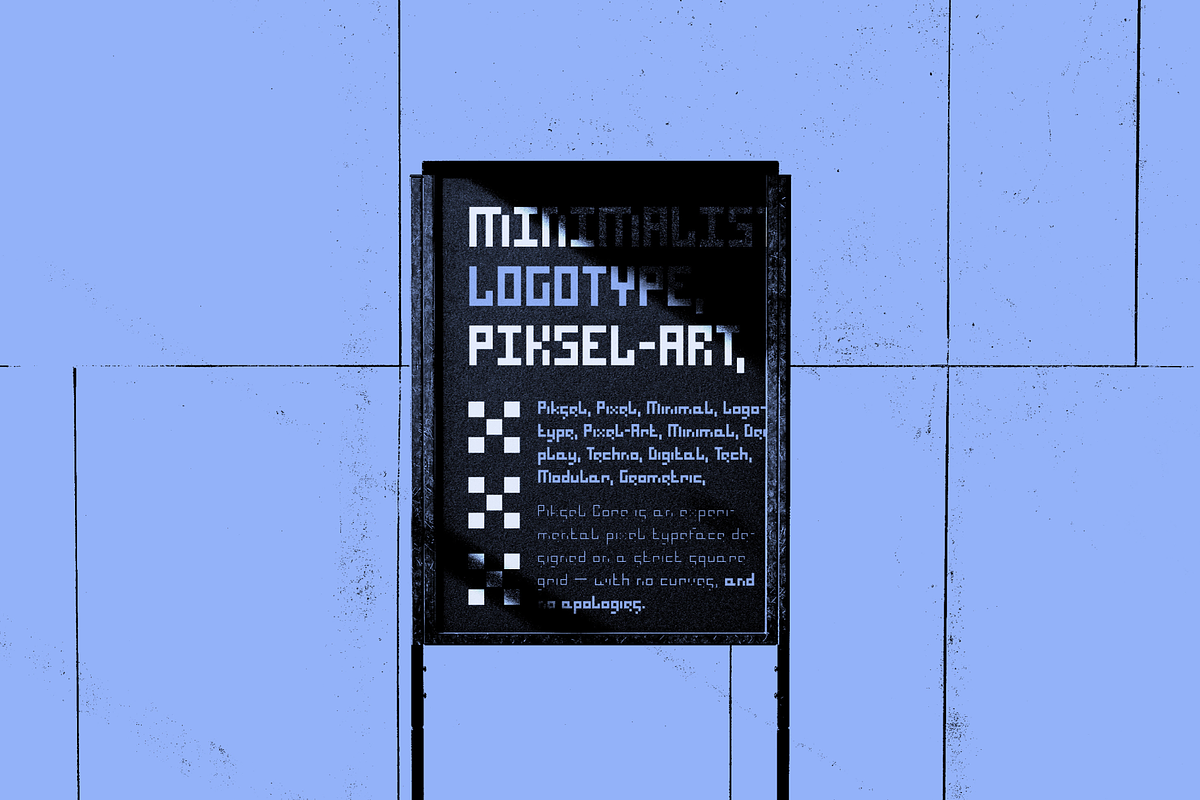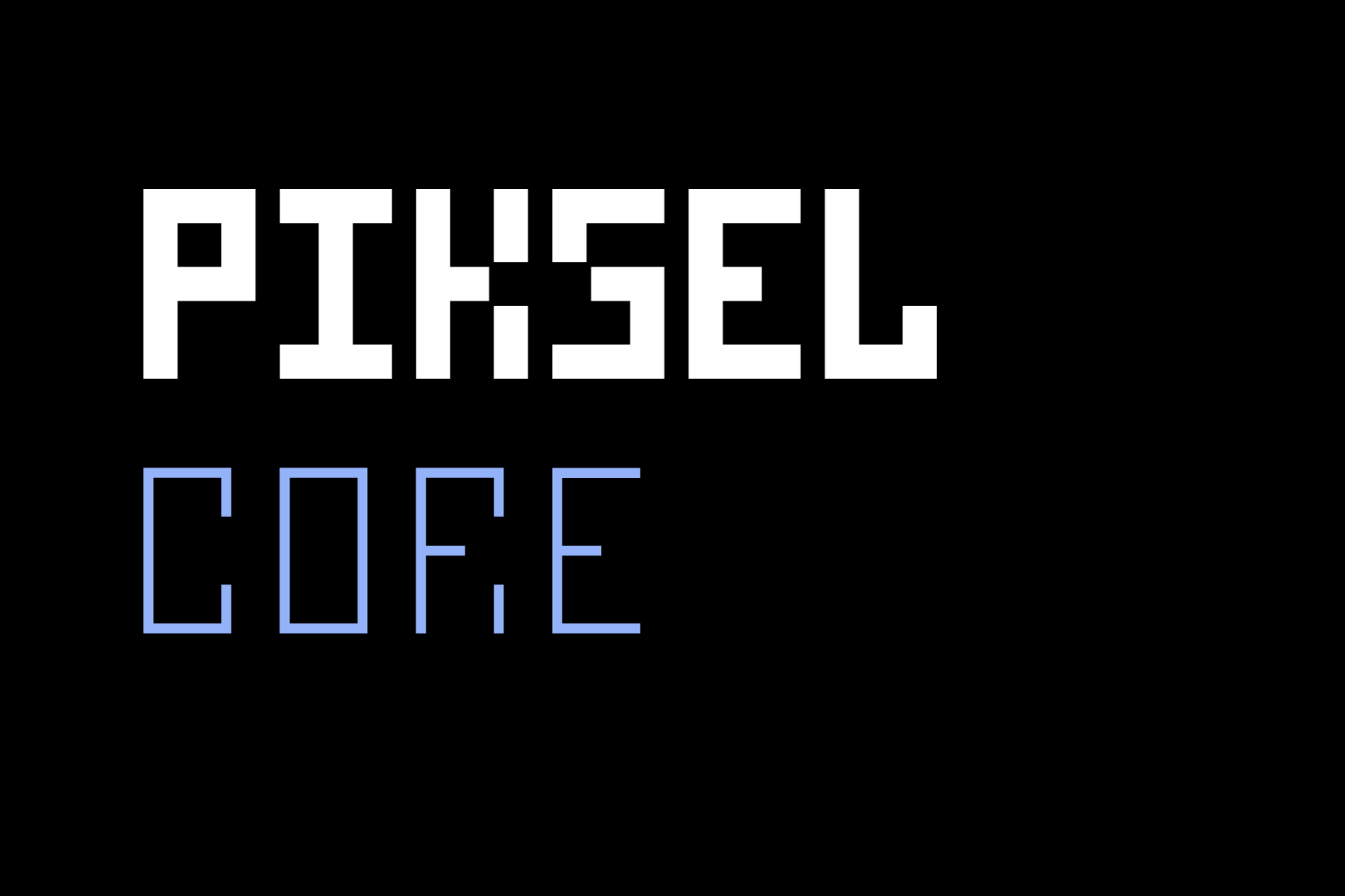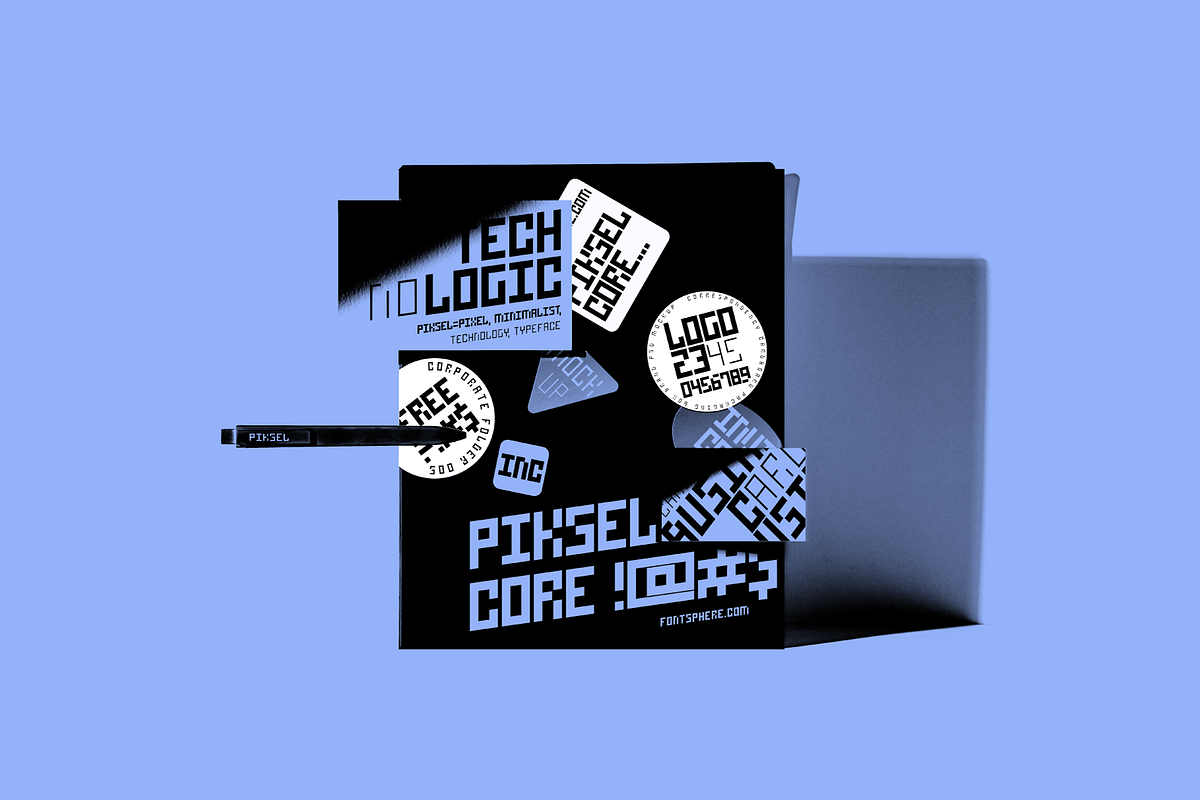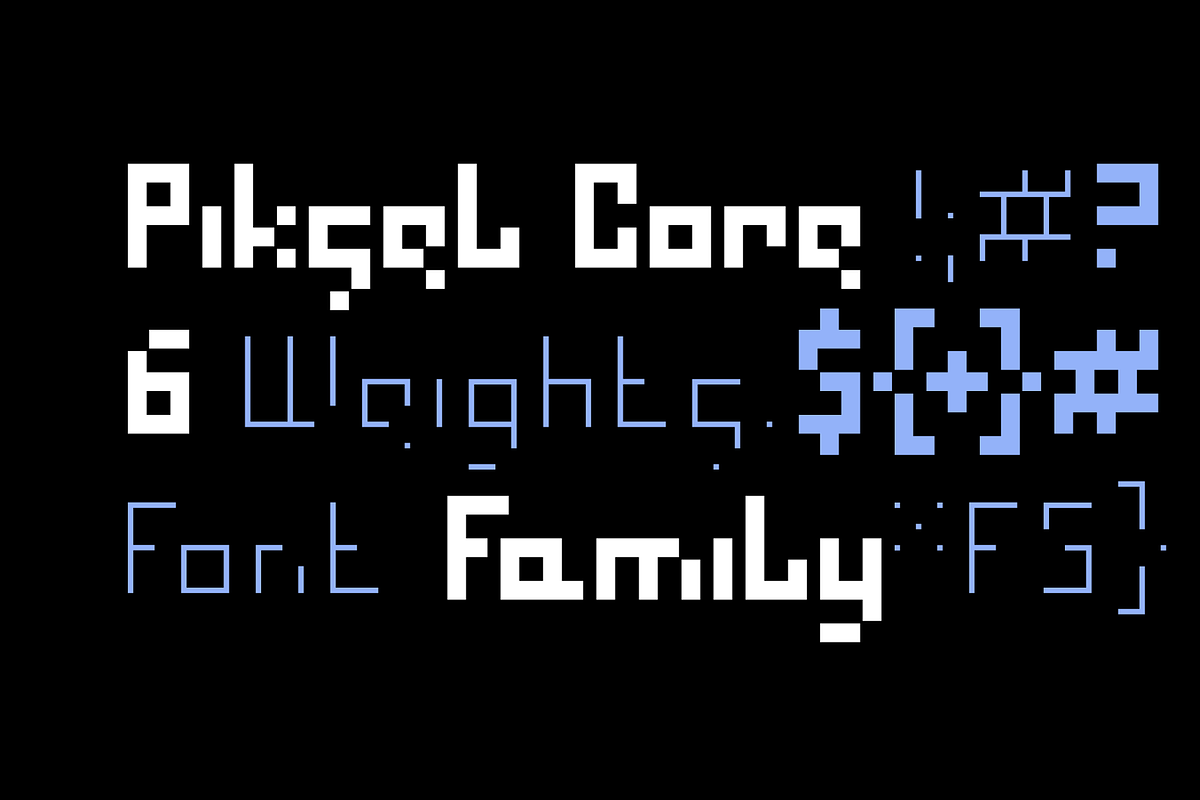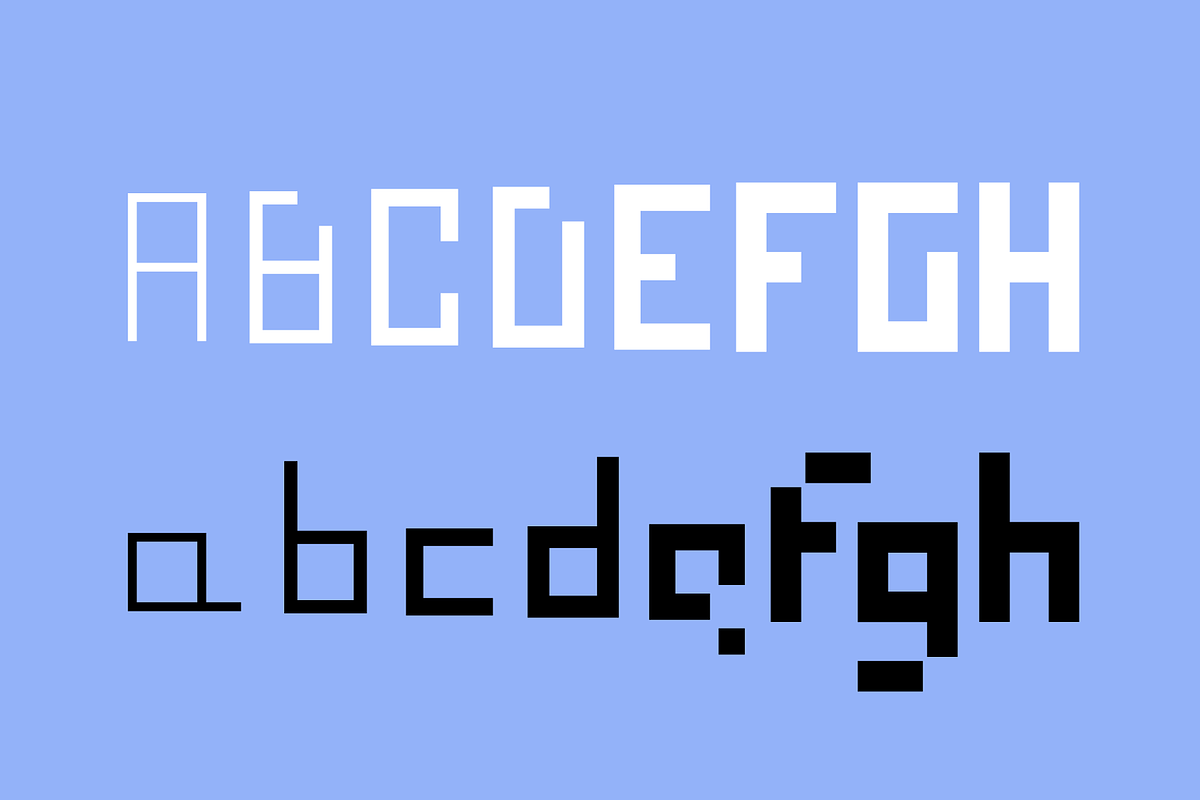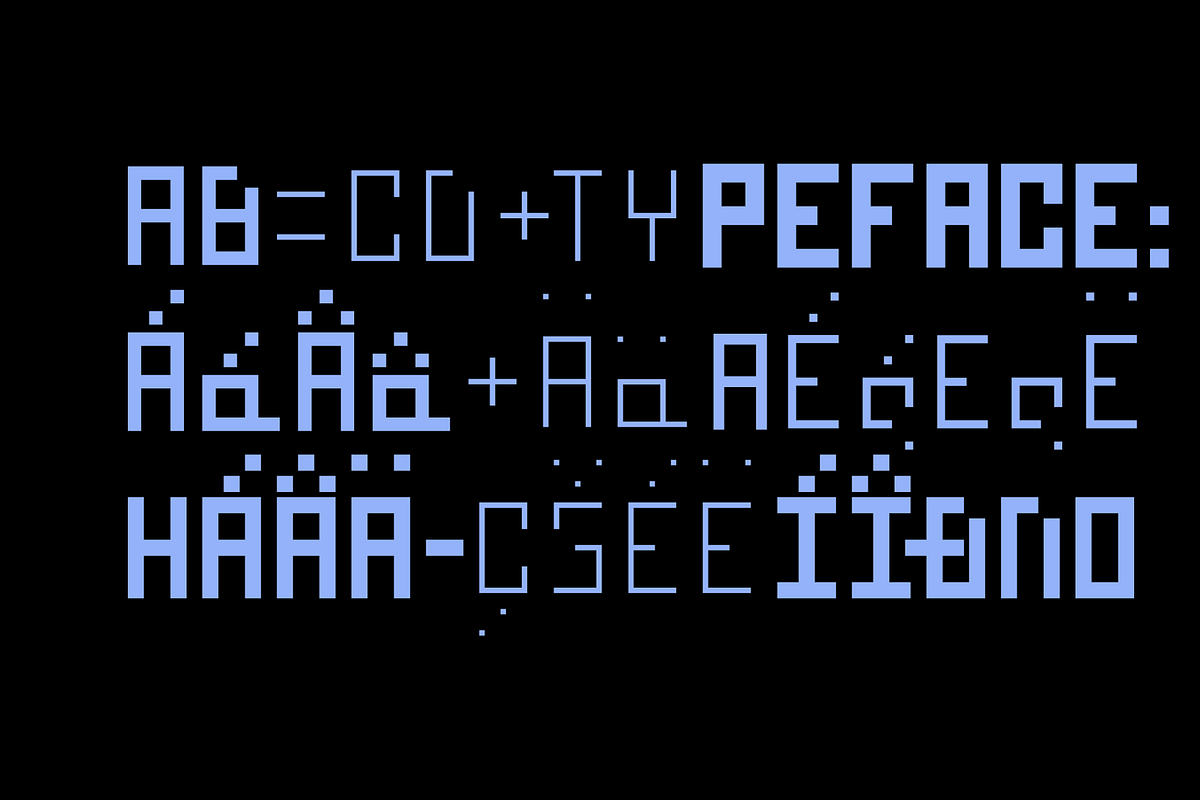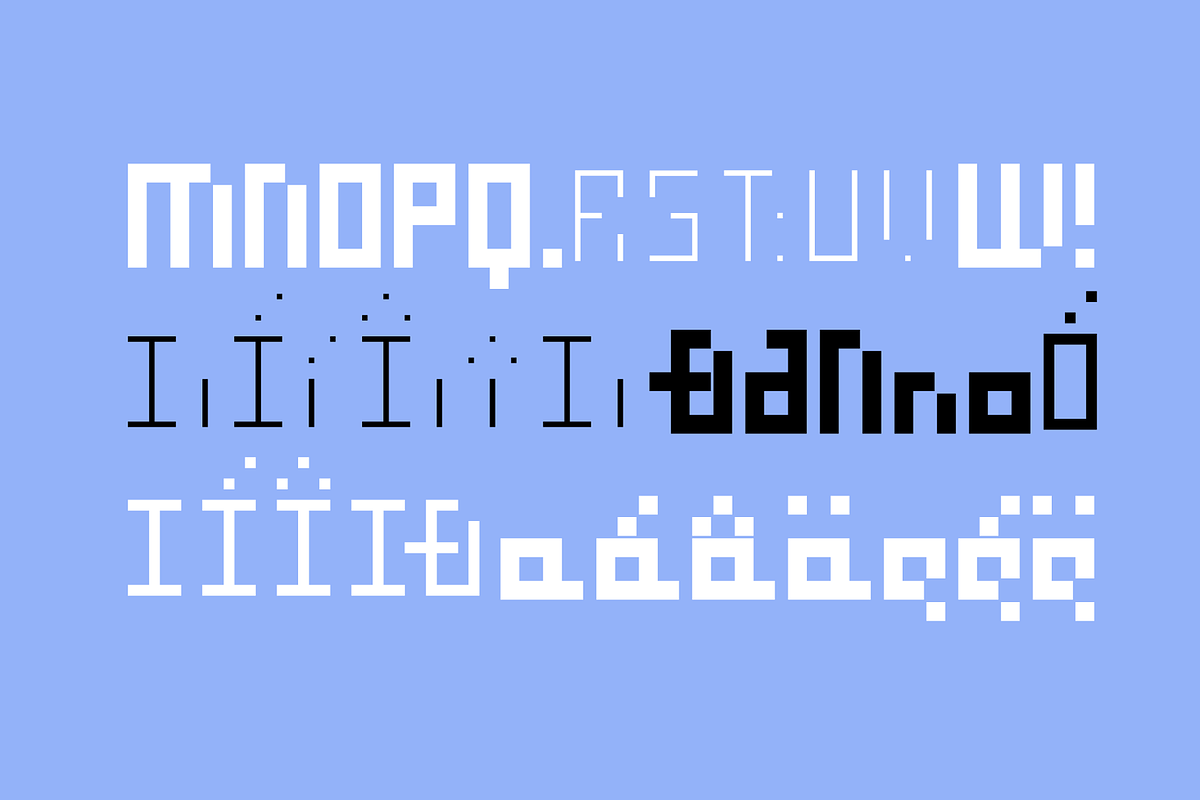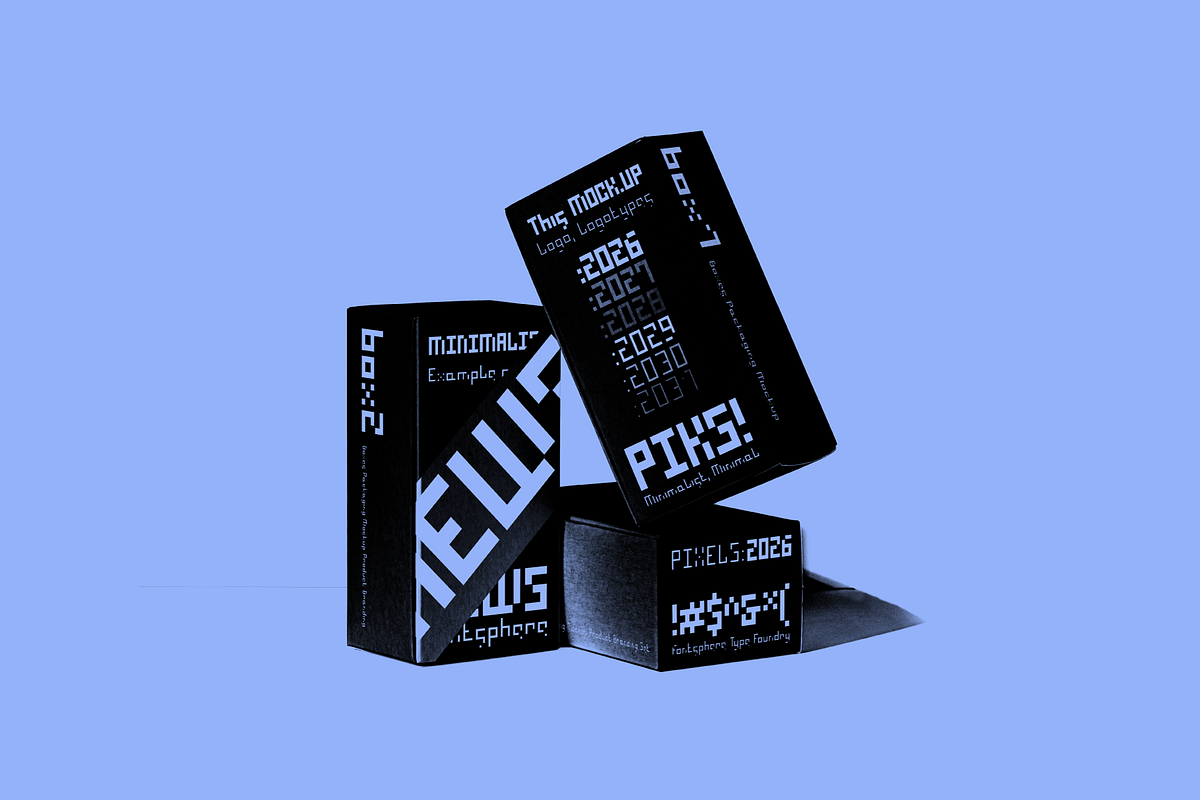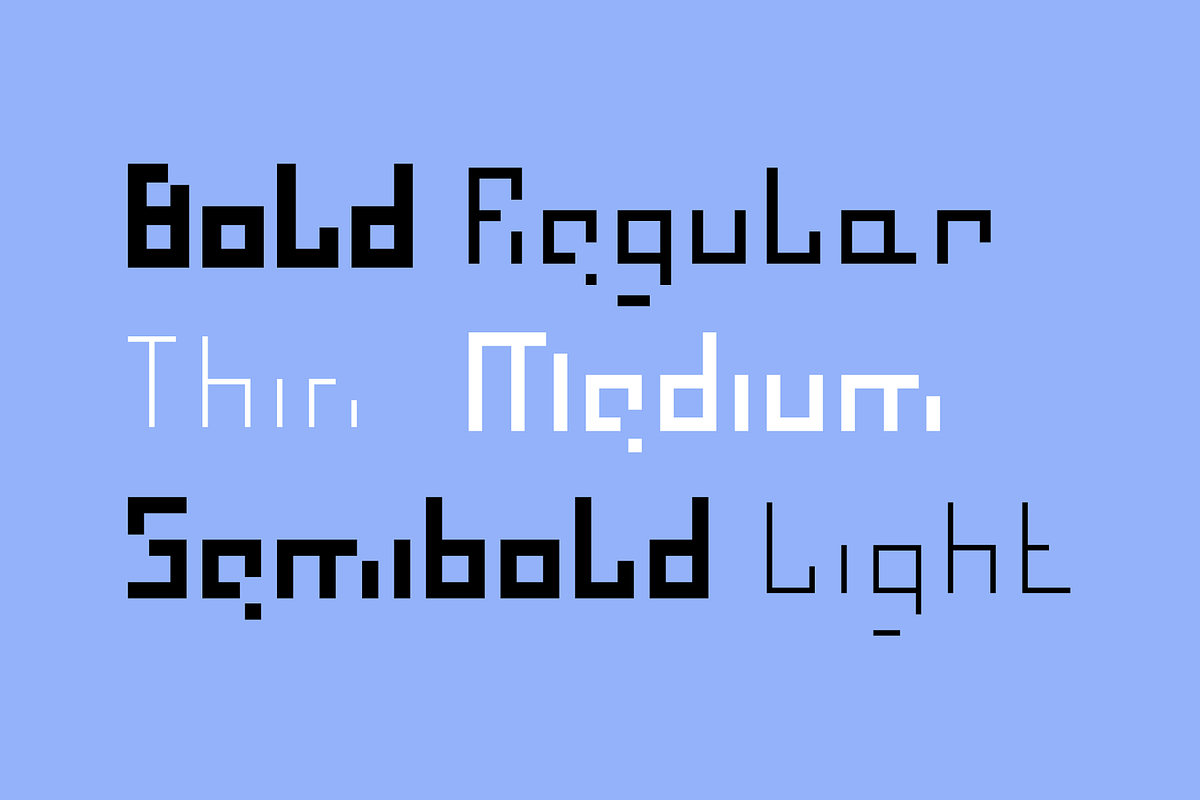
Piksel Core Font Family
Piksel Core is a modular pixel type family built on a strict square grid — no curves, no diagonals, just clear structure and sharp geometry. It was designed as a calmer, more functional counterpart to Piksel Core Mad, focusing on balance, consistency, and readability.
All glyphs are constructed from precise pixel units, with carefully considered spacing and proportions. The family includes both uppercase and lowercase letters, which is still relatively rare in pixel typefaces and makes Piksel Core more flexible for everyday use.
With six weights ranging from 200 to 700, Piksel Core works well across layouts, interfaces, and experimental typography, staying true to pixel logic while offering enough range for clear typographic hierarchy.